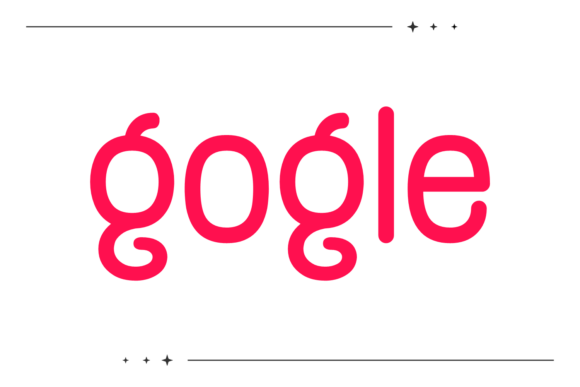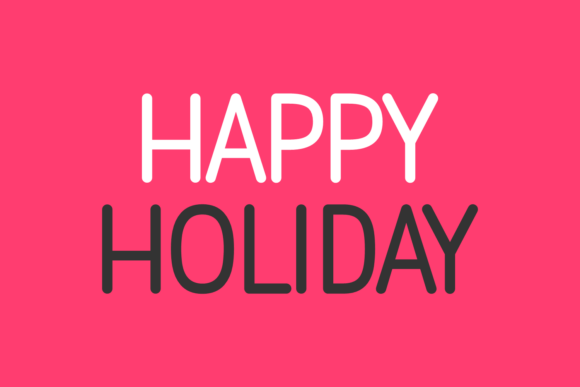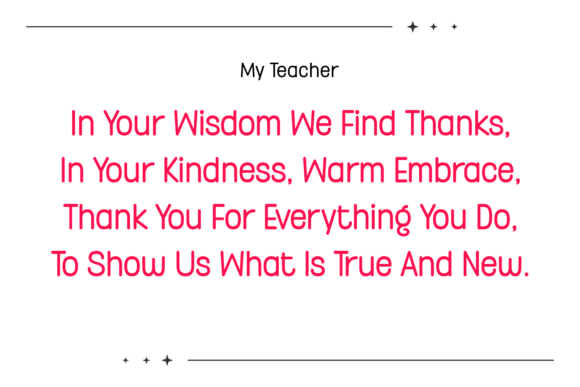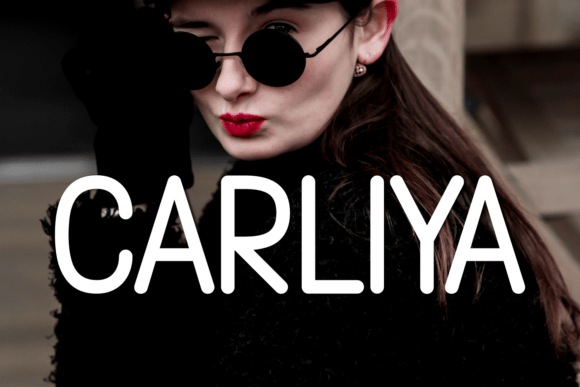
Gogle Font: A Cute & Playful Sans Serif for Cricut & DIY Projects
About the Gogle Font
We are excited to introduce Gogle Font, a must-have typeface for any serious designer. Gogle is a versatile branding tool that will transform your products, giving them a unique artistic touch. Whether you’re making invitations or designing a bold sports logo, this font will fill you with its soft, sweet, and sporty character. It has a unique feminine touch combined with an edgy appeal, easily turning any look into a charming visual statement.
Gogle excels in display applications such as logos, headlines, and short-form text on packaging or posters. Its unique character shines in branding for products aimed at a young, female-oriented market, or where a playful yet sophisticated aesthetic is desired. Avoid using Gogle for body copy or extended text; its distinctive features can become overwhelming and hinder readability in longer paragraphs.
Pairing Gogle effectively requires considering its blend of feminine curves and edgy energy. A clean sans-serif like Open Sans or Lato would provide a strong contrast and enhance readability when used for supporting text. For a more playful approach, consider pairing it with a rounded geometric sans-serif like Futura or a handwritten script font with controlled variations for a touch of elegance.
The overall personality of Gogle is best described as bold yet approachable, combining a soft feminine touch with a modern, slightly rebellious edge. This makes it ideal for brands that wish to project confidence and creativity without appearing overly serious or corporate.